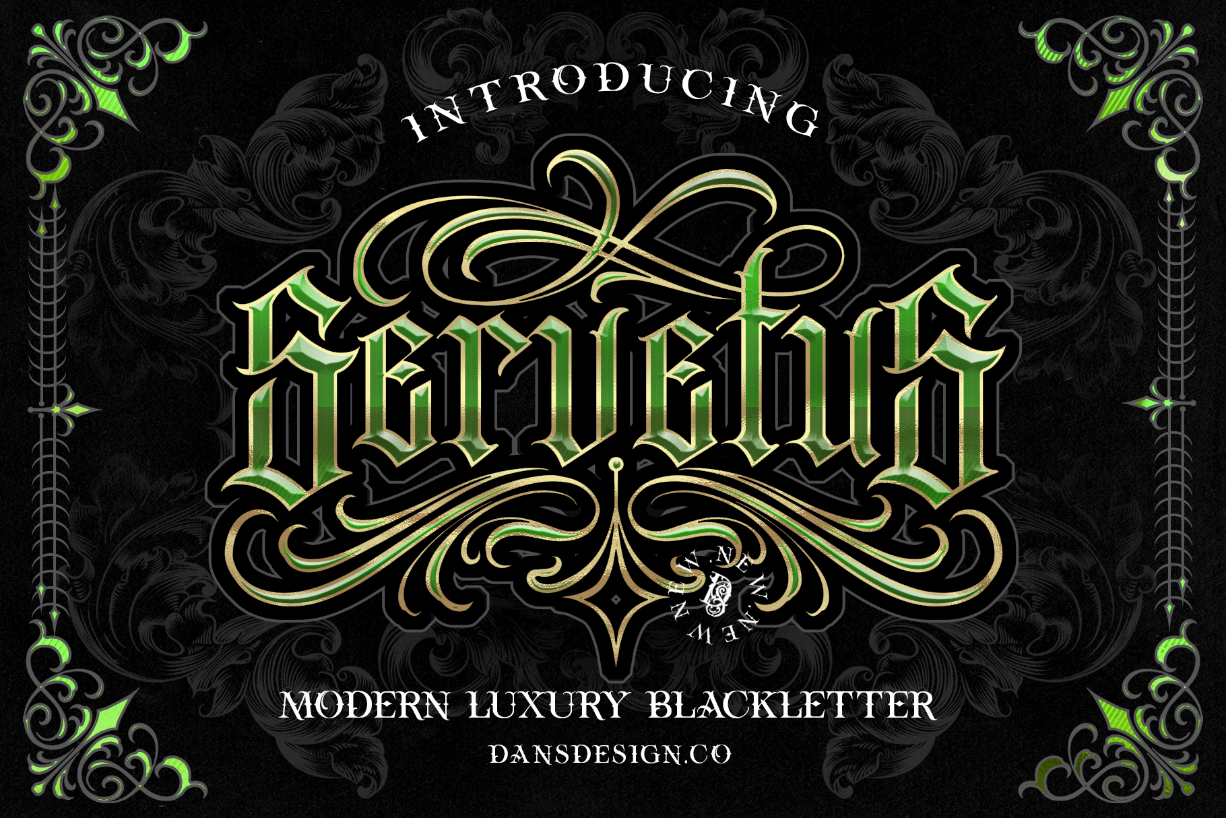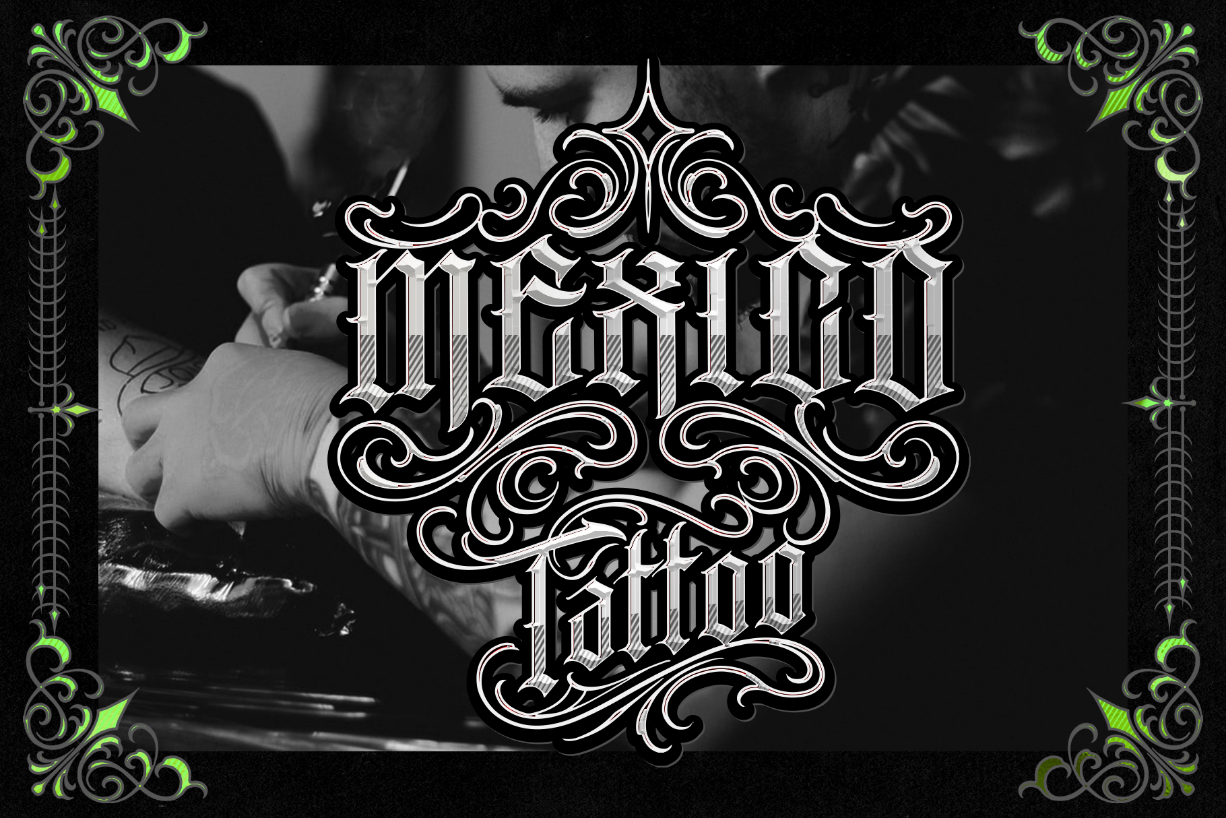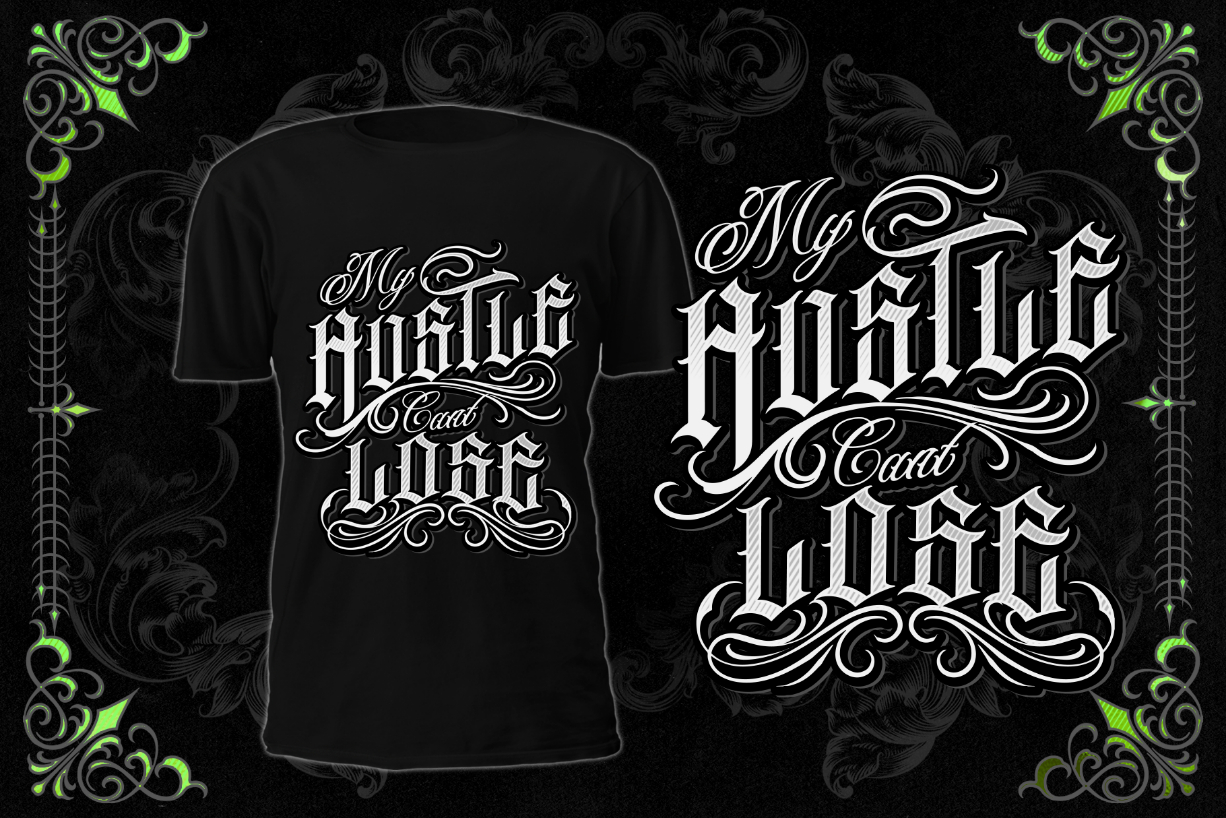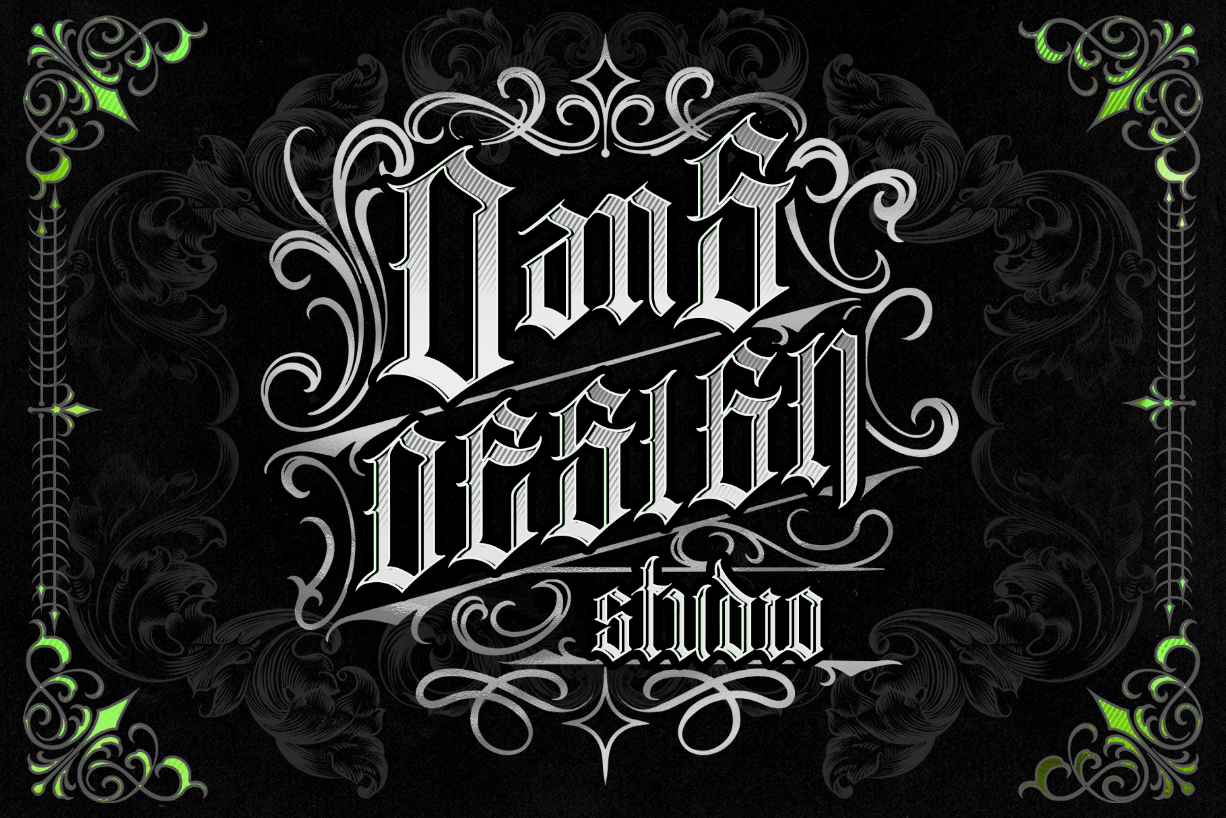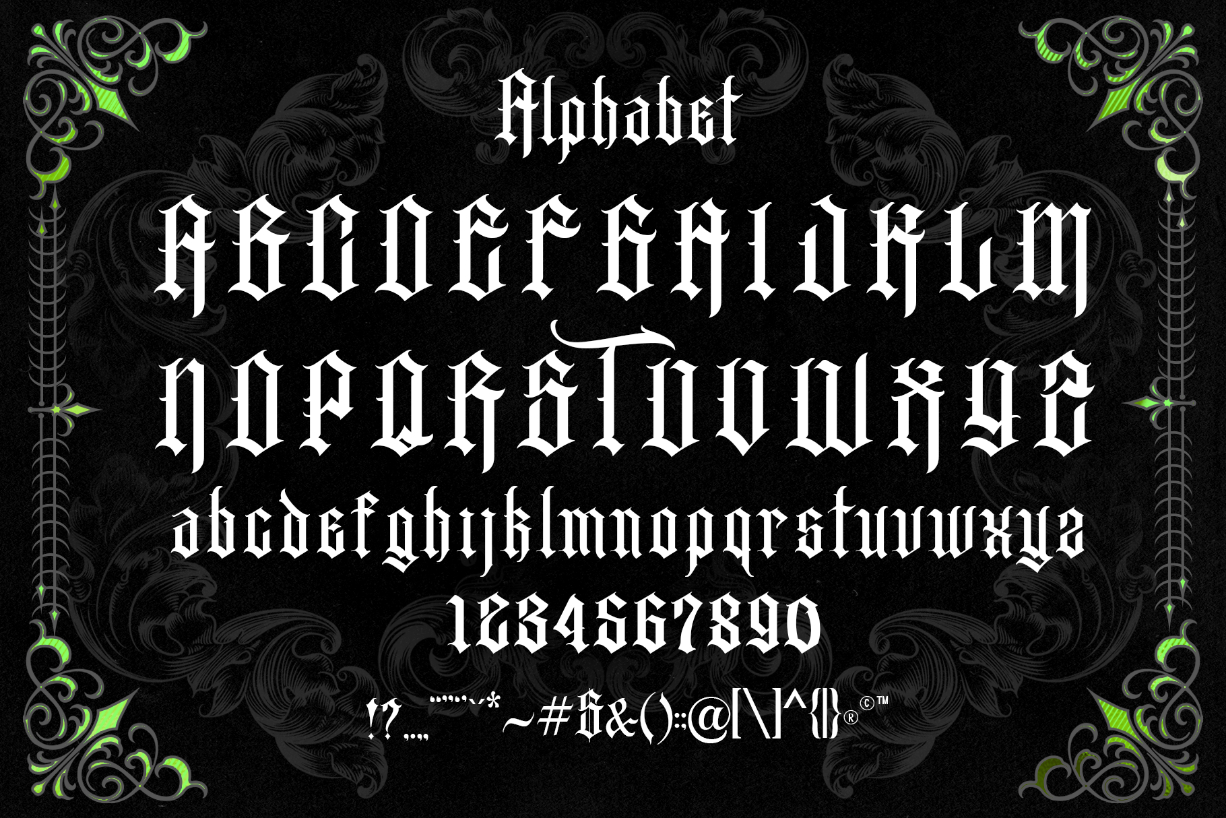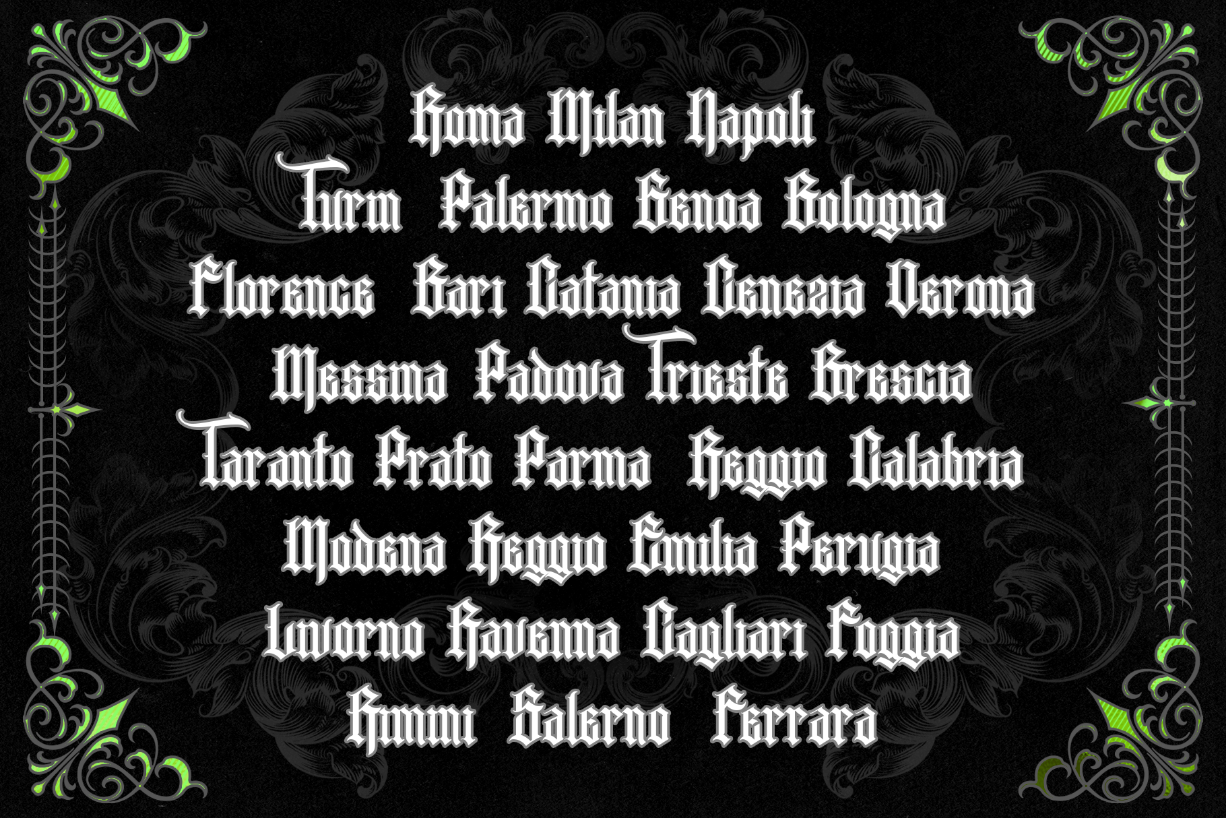
Servetus Font
About Servetus Font
Servetus is a highly detailed and bold blackletter font. This font is imposing and features uniquely shaped letters, and as a result, it will easily match a wide range of creations that require a distinct touch.